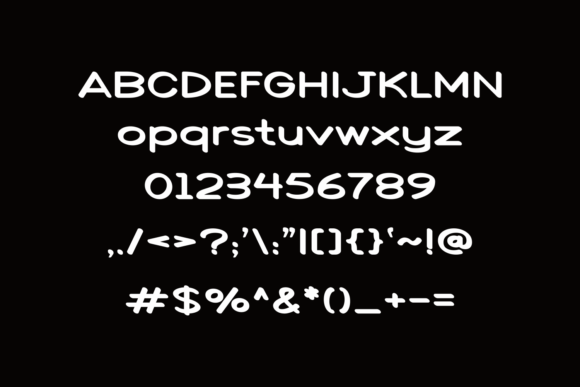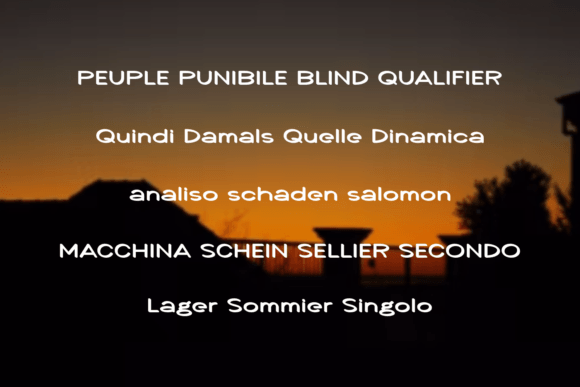
Introducing Gerny Font: The Fun and Friendly Sans Serif for Your Creative Projects
Are you tired of using the same old fonts in your designs? Look no further than Gerny Font, a fun and friendly sans serif font that’s sure to add a touch of personality to your creative projects. In this article, we’ll dive into the world of Gerny Font, exploring its features, benefits, and uses, and show you why it’s a must-have for designers and crafters alike.
What is Gerny Font?
Gerny Font is a sans serif font that’s designed to be fun, friendly, and approachable. Its clean lines, simple shapes, and rounded edges make it perfect for a wide range of creative projects, from digital designs to print materials. Whether you’re working on a logo, brochure, or social media graphic, Gerny Font is sure to add a touch of whimsy and personality to your design.
Features of Gerny Font
So, what makes Gerny Font so special? Here are just a few of its key features:
- Fun and friendly design: Gerny Font is designed to be playful and approachable, making it perfect for brands and designers who want to add a touch of personality to their designs.
- Clean lines and simple shapes: Gerny Font features clean lines and simple shapes, making it easy to read and versatile enough to use in a wide range of designs.
- Rounded edges: The rounded edges of Gerny Font give it a soft and friendly feel, making it perfect for designs that need to convey a sense of approachability and warmth.
- Sans serif: As a sans serif font, Gerny Font is perfect for digital designs, where it can help to create a clean and modern look.
Benefits of Using Gerny Font
So, why should you choose Gerny Font for your next design project? Here are just a few of the benefits of using this fun and friendly font:
- Adds personality to your designs: Gerny Font is a great way to add a touch of personality to your designs, helping you to stand out from the crowd and create a lasting impression.
- Versatile: Gerny Font is versatile enough to use in a wide range of designs, from digital designs to print materials.
- Easy to read: Despite its playful design, Gerny Font is easy to read, making it perfect for use in body text and other applications where readability is key.
Uses for Gerny Font
So, what can you use Gerny Font for? The possibilities are endless! Here are just a few ideas to get you started:
- Digital designs: Gerny Font is perfect for digital designs, including social media graphics, website headers, and more.
- Print materials: Gerny Font is also great for print materials, including brochures, flyers, and business cards.
- Logo design: Gerny Font is a great choice for logo design, where its playful and friendly design can help to create a lasting impression.
- Crafting projects: Gerny Font is also perfect for crafting projects, including card making, scrapbooking, and more.
In conclusion, Gerny Font is a fun and friendly sans serif font that’s perfect for designers and crafters alike. With its clean lines, simple shapes, and rounded edges, Gerny Font is sure to add a touch of personality to your creative projects. Whether you’re working on a digital design, print material, or crafting project, Gerny Font is a great choice. So why not give it a try and see the results for yourself?
Gerny Font is a great addition to any design project, and we highly recommend it to anyone looking for a fun and friendly font. With its versatility, readability, and free availability, Gerny Font is a must-have for any designer or crafter.
Add Gerny Font to your creative ideas and you will love the results! Its unique and playful design is sure to make your designs stand out from the crowd and leave a lasting impression.